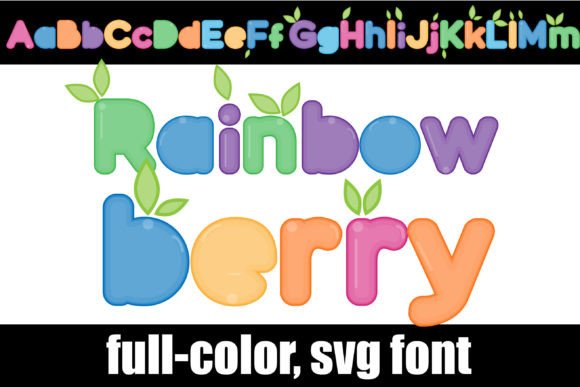
Step into a world where letters dance in a kaleidoscope of colors, where every word you type is a masterpiece of vibrant hues. Introducing Rainbowberry Font, the ultimate expression of creativity, a symphony of colors that will transform your designs into breathtaking works of art.
With Rainbowberry Font, you'll unlock a realm of endless possibilities. Create eye-catching logos that pop off the screen, design invitations that burst with joy, or craft social media posts that sparkle with individuality. The possibilities are as limitless as your imagination.
Immerse yourself in the beauty of nature with Rainbowberry Font's unique berry-like appearance. Each letter is adorned with intricate leaves, adding a touch of elegance and sophistication to your designs. Let your words bloom with the vibrancy of a summer garden, captivating your audience with every stroke.
Unleash the power of color with Rainbowberry Font's stunning color palette. From vibrant blues and greens to radiant yellows and pinks, the full spectrum of the rainbow awaits your creative touch. Say goodbye to dull and monotonous text, and embrace a world where words come alive with color.
Experience the magic of Rainbowberry Font's versatility. Whether you're designing for print or digital, creating a website or a social media campaign, Rainbowberry Font will elevate your projects to new heights. Its diverse range of styles ensures that you'll always find the perfect fit for your creative vision.
Join the ranks of creative professionals who have discovered the transformative power of Rainbowberry Font. Let your designs flourish with color, let your words dance with joy, and let your creativity soar to new heights. Embrace the beauty of Rainbowberry Font today and unlock a world of enchanting designs.